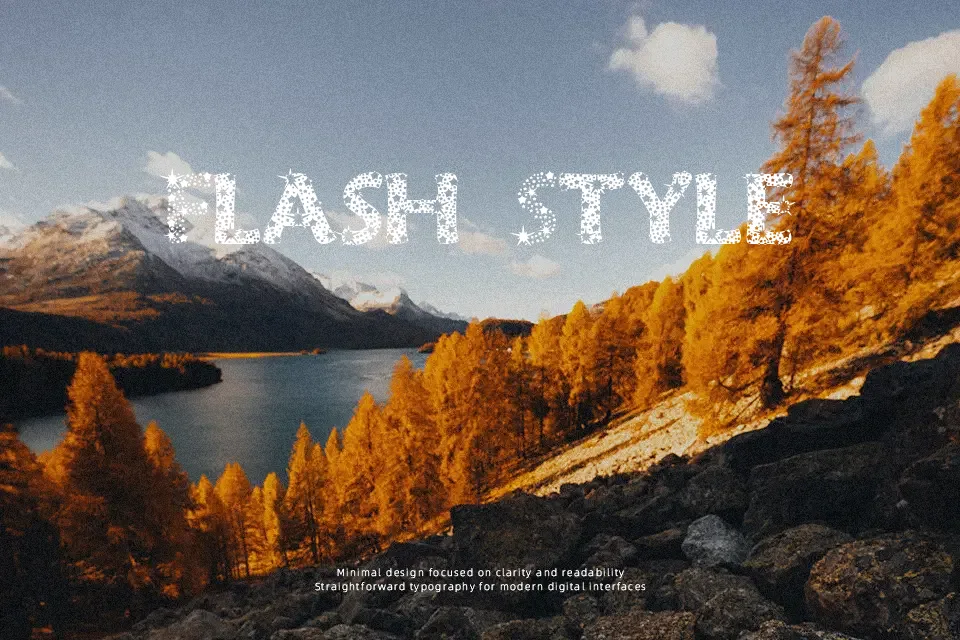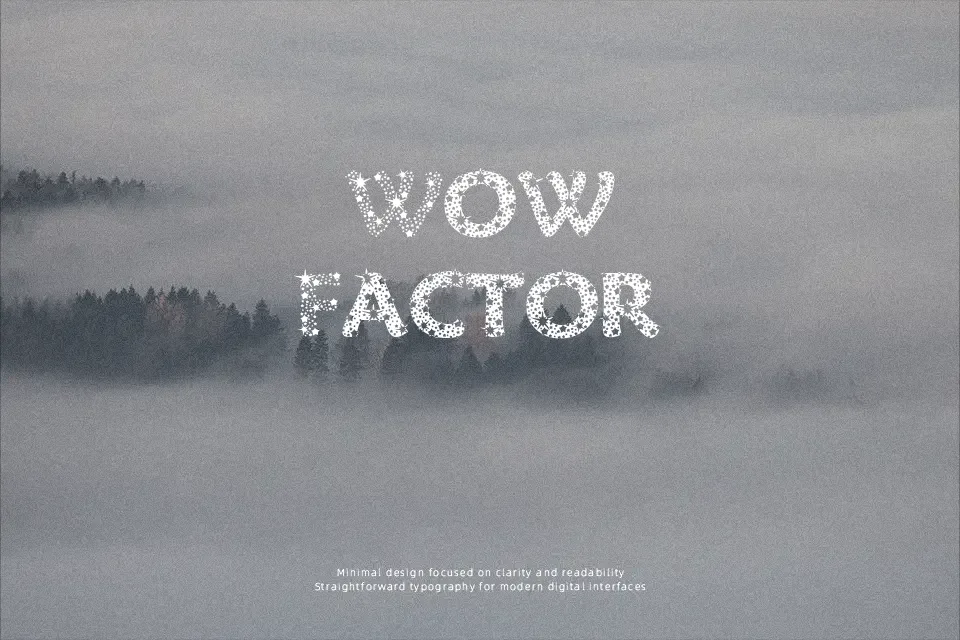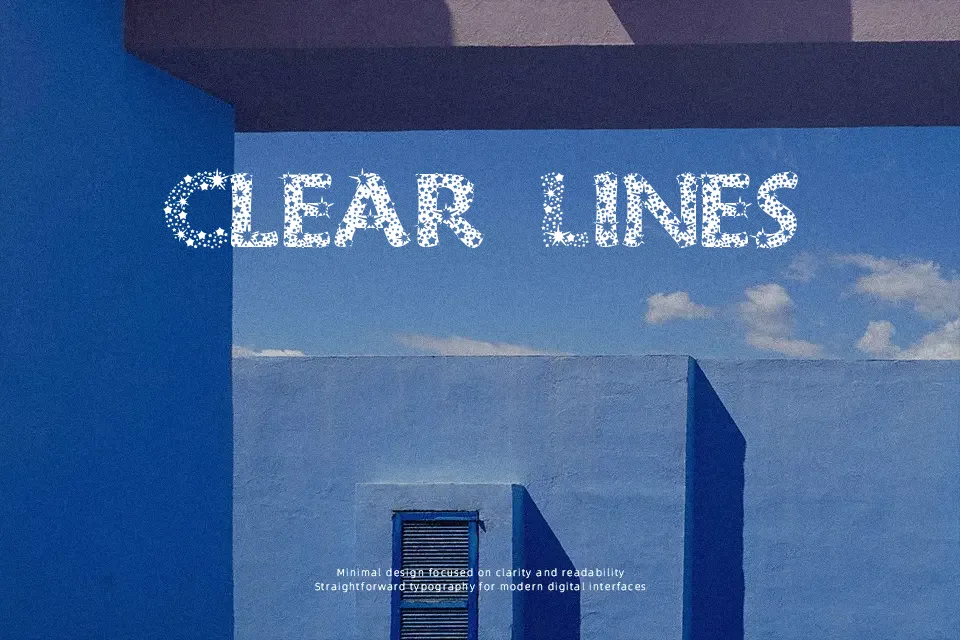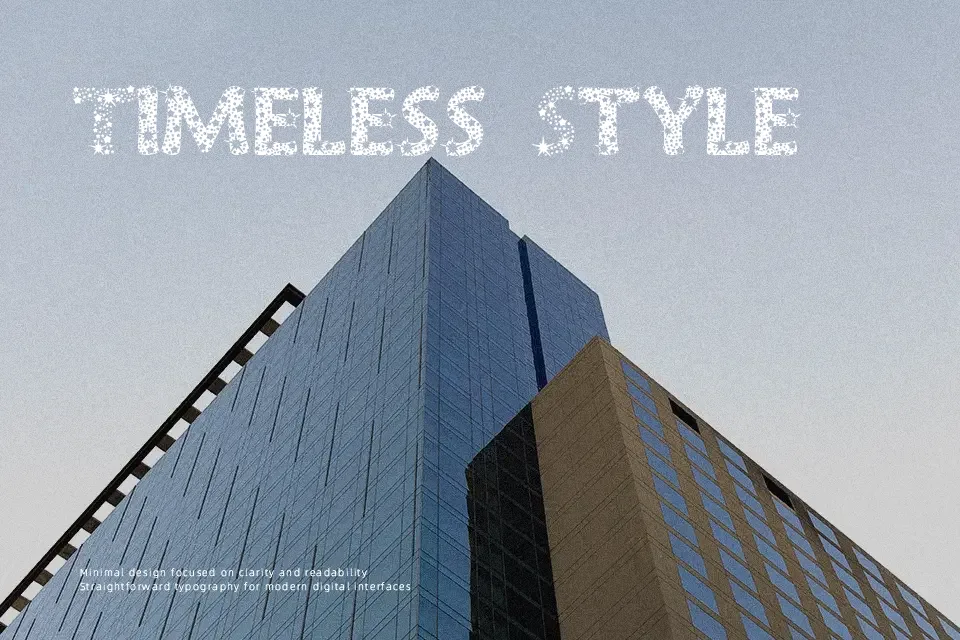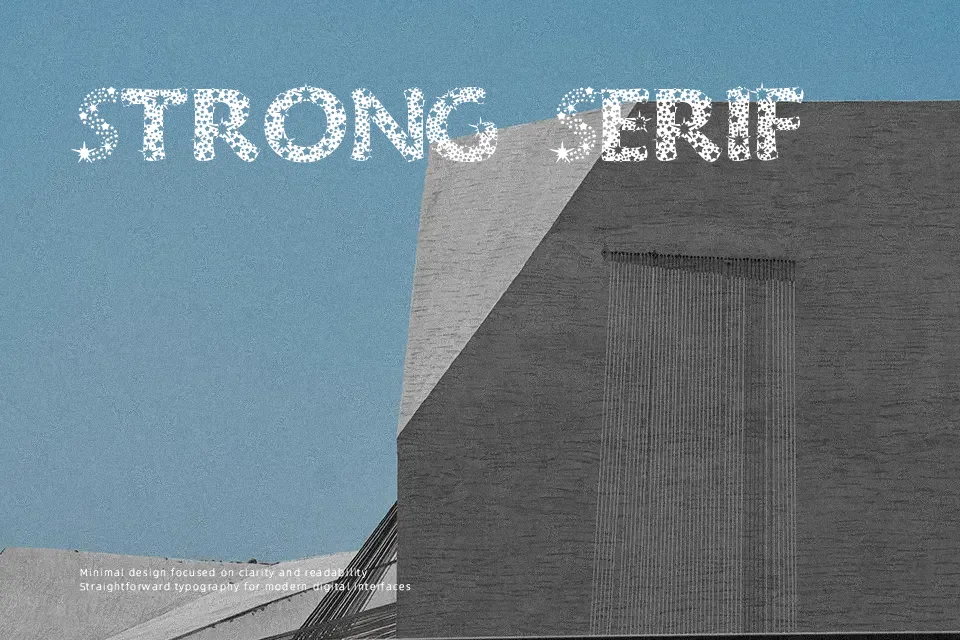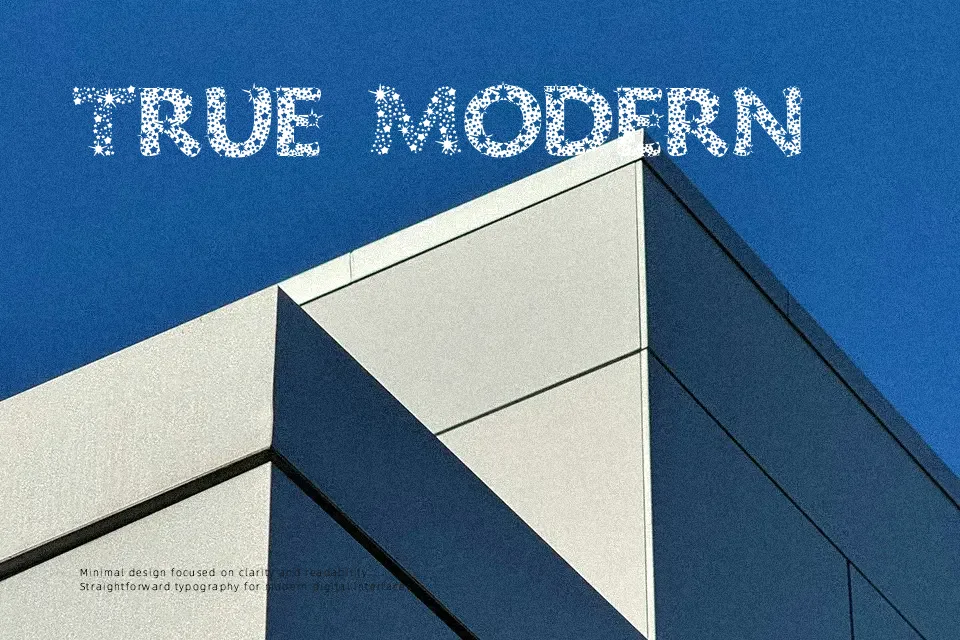
Razzle Dazzle Font
Razzle Dazzle Font features a bold, densely packed structure where each letterform is constructed from textured, glitter-like elements. The robust strokes and wide proportions give the typeface a heavy yet energetic visual rhythm. Because the character outlines are defined by these scattered internal shapes rather than solid lines, the spacing remains inherently open and slightly irregular. The decorative details become less effective at smaller sizes, as the complex texture blends together and reduces overall clarity. The letterforms maintain strong visibility in large display text, making this typeface an excellent choice for eye-catching holiday posters, vibrant packaging, and bold festive headlines. However, its high decorative complexity means it remains unsuitable for long paragraphs or small interface layouts.
Best For: festive holiday packaging, playful children’s posters, large event headlines
Not Ideal For: long paragraph text, small interface labels, dense editorial layouts
Perfect for headline, holiday, and kids, with a bold and decorative style.